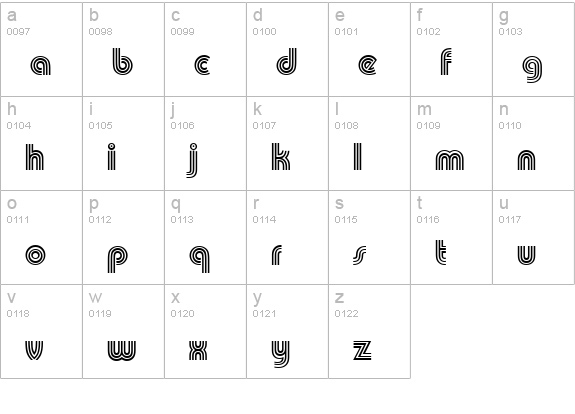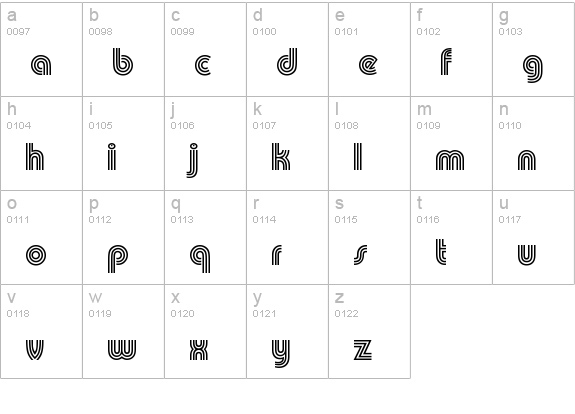
Puente-Triline-Regular is the standard, neutral variant in the Puente typeface family \xE2\x80\x94 well suited to general body text, paragraphs, and standard typographic work.
Puente-Triline-Regular font is a modern and versatile typeface that combines sleek lines with a unique triline design. This font is perfect for adding a contemporary touch to any project, whether it be branding, advertising, or editorial design. Its clean and elegant characters make it a great choice for logos, headers, and other prominent text elements. The best part about Puente-Triline-Regular font is that it is completely free to download at FontsMarket.com. You can easily access this stylish font and use it in your projects without any cost. With its sharp and eye-catching appearance, Puente-Triline-Regular font is sure to make a statement and elevate the overall look of your designs. Don't miss out on this fantastic opportunity to enhance your creative work with this stunning font!